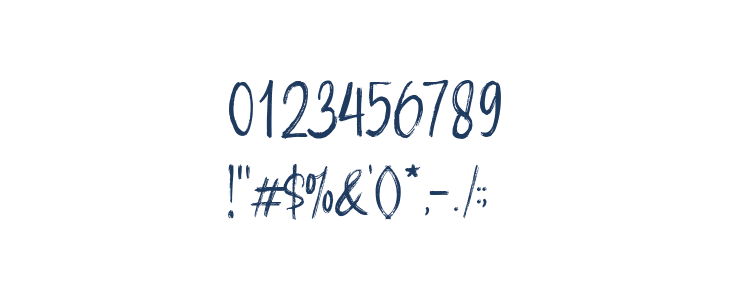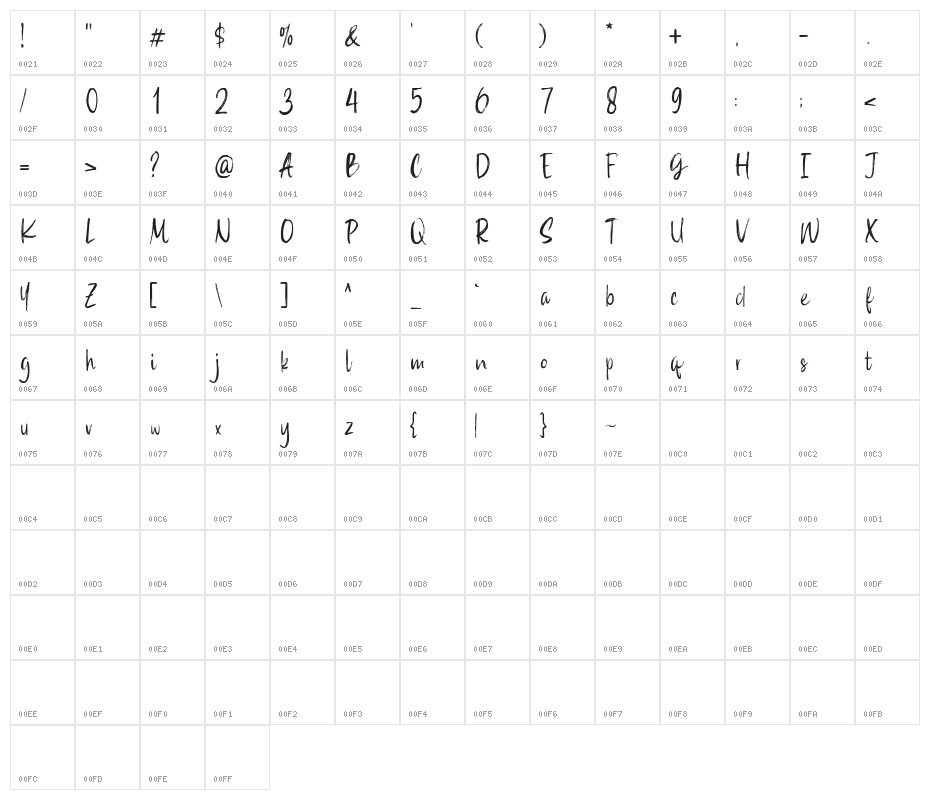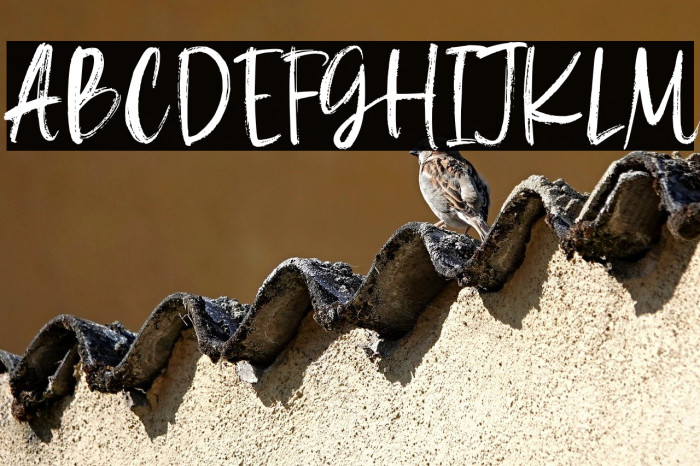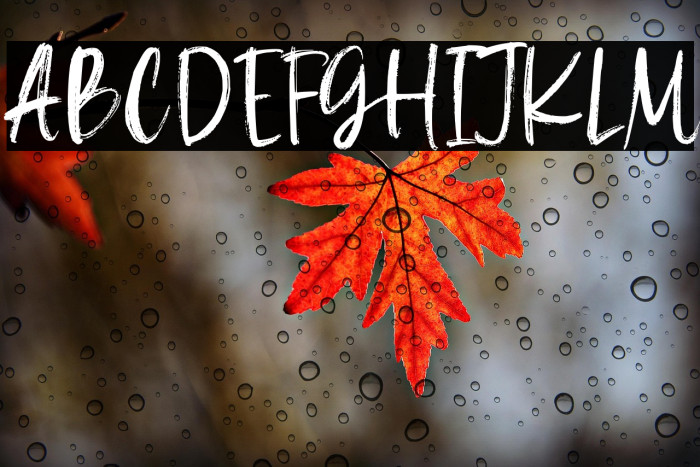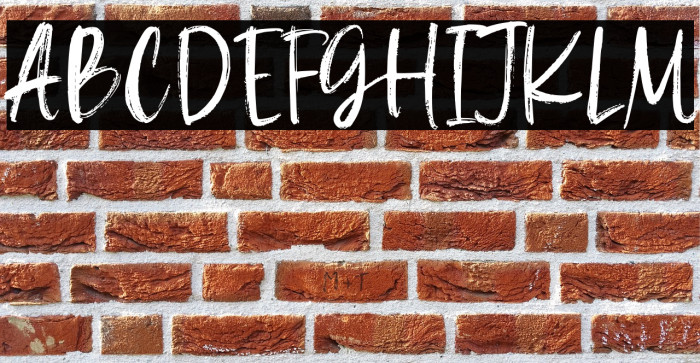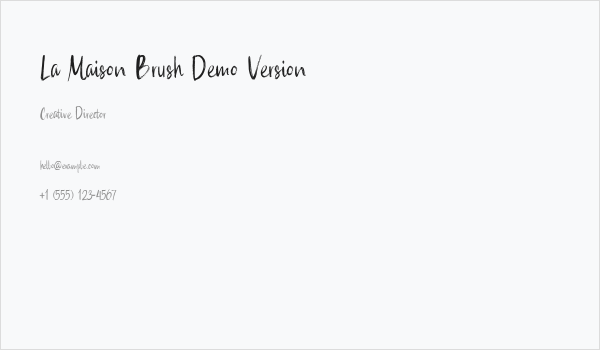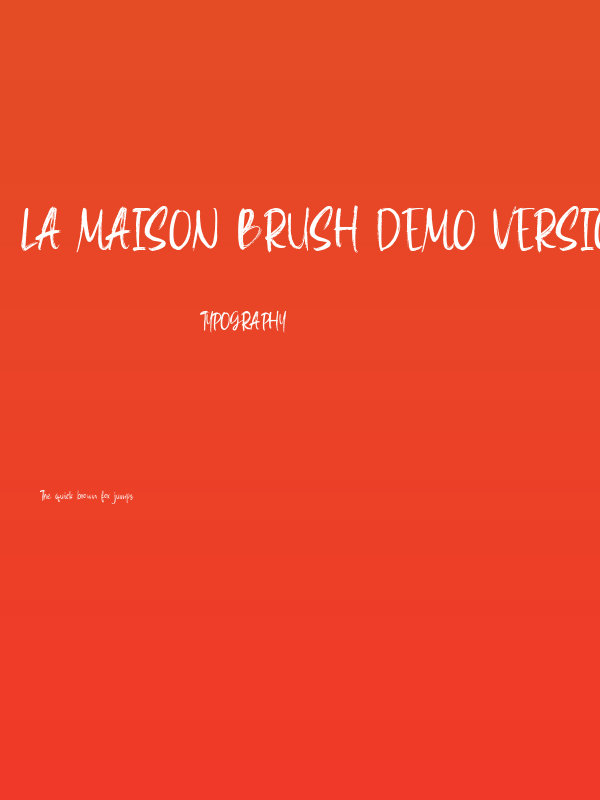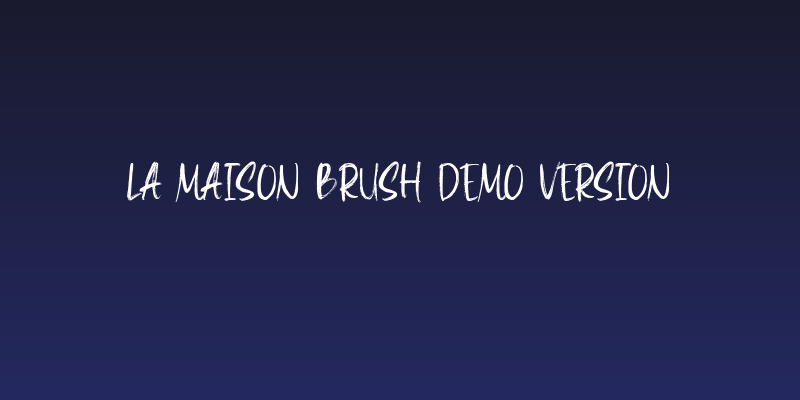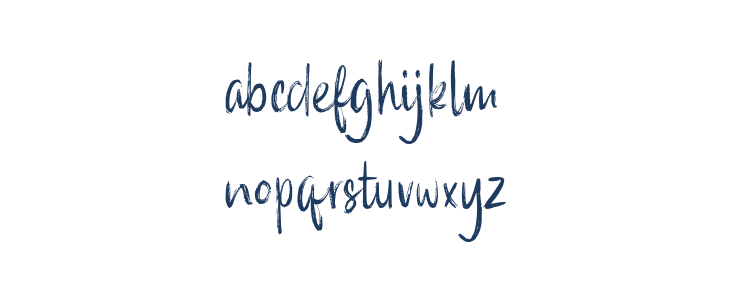
La Maison Brush Demo Version Font
La Maison Brush Demo Version Description
This font exudes a dynamic and artistic flair, characterized by its brush-like strokes that convey a sense of movement and energy. The letters are crafted with varying thicknesses, giving them a hand-painted appearance that is both bold and expressive. The uppercase and lowercase letters maintain a consistent style, with a slightly irregular baseline that enhances the casual, handwritten feel. Numbers and special characters are equally expressive, maintaining the same brushstroke aesthetic. This font is ideal for projects that require a personal touch, such as invitations, posters, or branding materials that aim to capture attention with a creative and informal vibe.
| Proposed Projects | Ideal for creative projects like invitations, posters, branding, and any design needing a personal, artistic touch. |